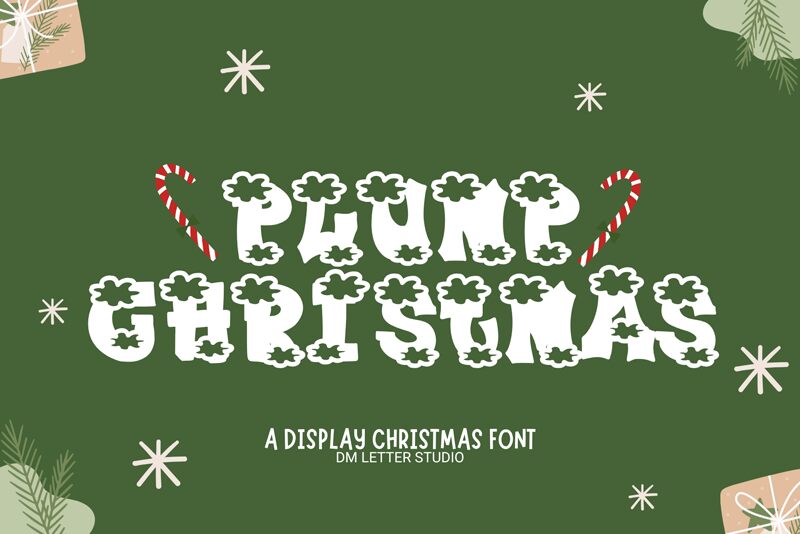
Plump Christmas font is a free font designed by DM Letter Studio - Dimas Prasetyo. With bold caps, it is cheerful and designed to make a bold impact. Each character is festival-led, decorated with excitement to create a truly festive and eye-catching appearance. What makes this typeface all the more special is the additional hovering elements included along the top edges of each character. The latter appear as tiny bright stars which complement the holiday-inspired thematic.
Thanks to the creator’s cursive imagination and creativity, Plump Christmas is suitable for Christmassy greetings cards, decorative wish cards, festive invitations, or holiday season posters. Even better, with some inspiration, it can be brought into captivating T-shirt designs, stationery products, branding, packaging products, social media posts, and more.